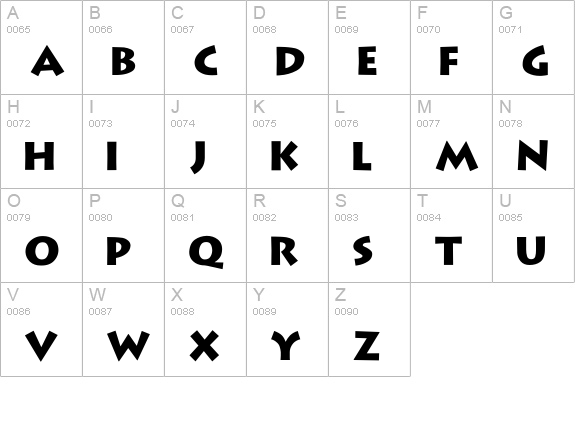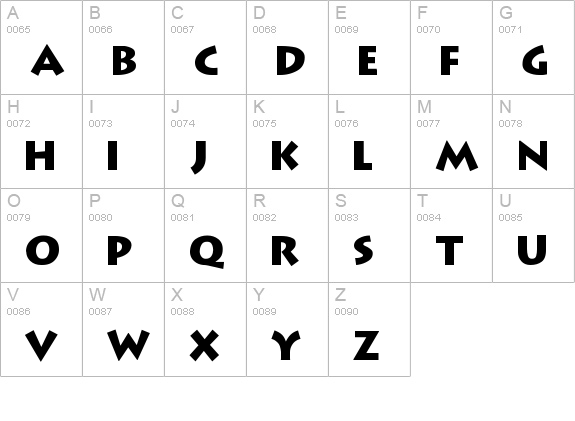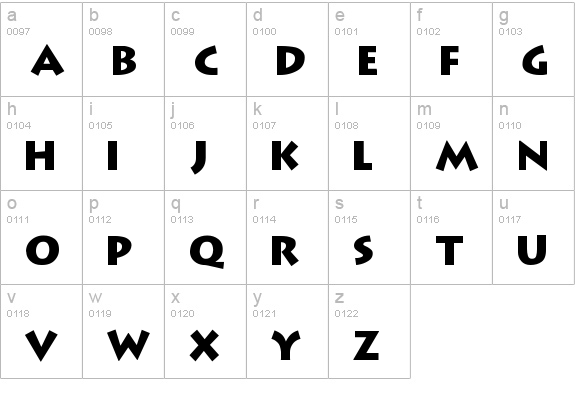
LithographExtBo Font Details
LithographExtBo is a captivating and versatile display font that exudes a sense of elegance and sophistication. With its bold and striking letterforms, this font is perfect for making a statement in your designs. Whether you're creating posters, logos, or signage, LithographExtBo will command attention and leave a lasting impression. What sets LithographExtBo apart is not only its distinctive style, but also the fact that it is available for free download at FontsMarket.com. This means that you can elevate your projects without breaking the bank. Embrace the artistic flair and timeless appeal of LithographExtBo today and watch your designs come to life with a touch of class.